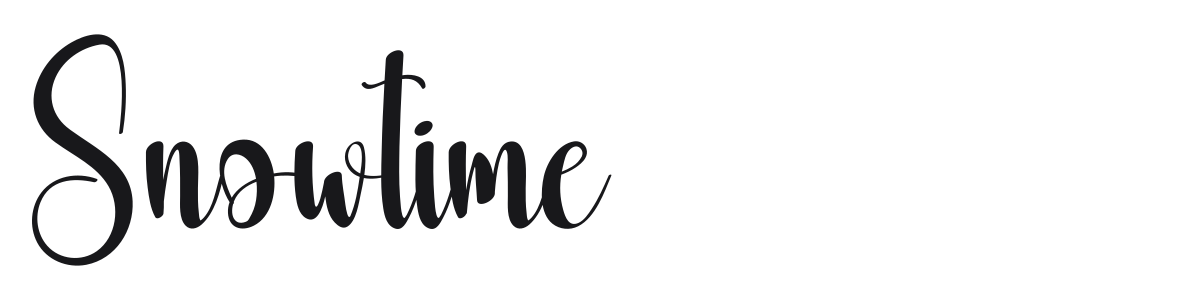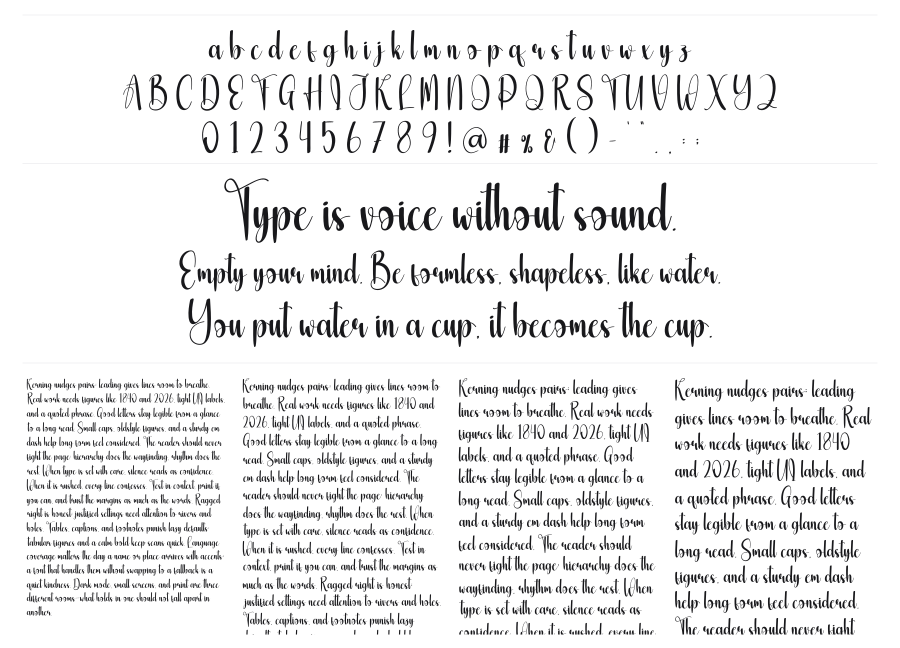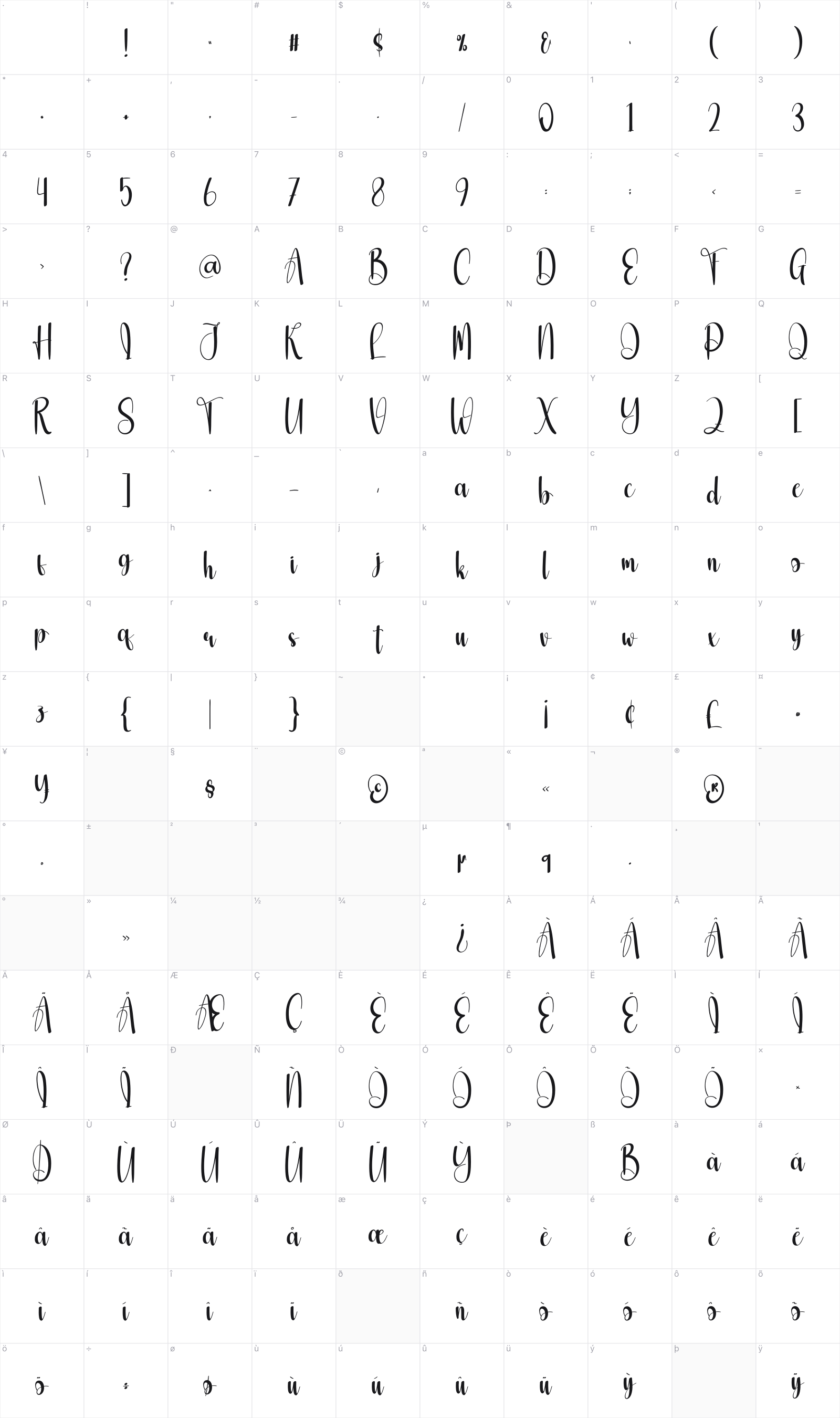
Snowtime
Snowtime is a bold casual script with flowing connected strokes and lively swash details. The bouncing baseline and looped descenders give it an energetic, handcrafted feel that works well on wedding stationery, packaging, and social media graphics. A contemporary take on brush calligraphy with plenty of decorative personality.